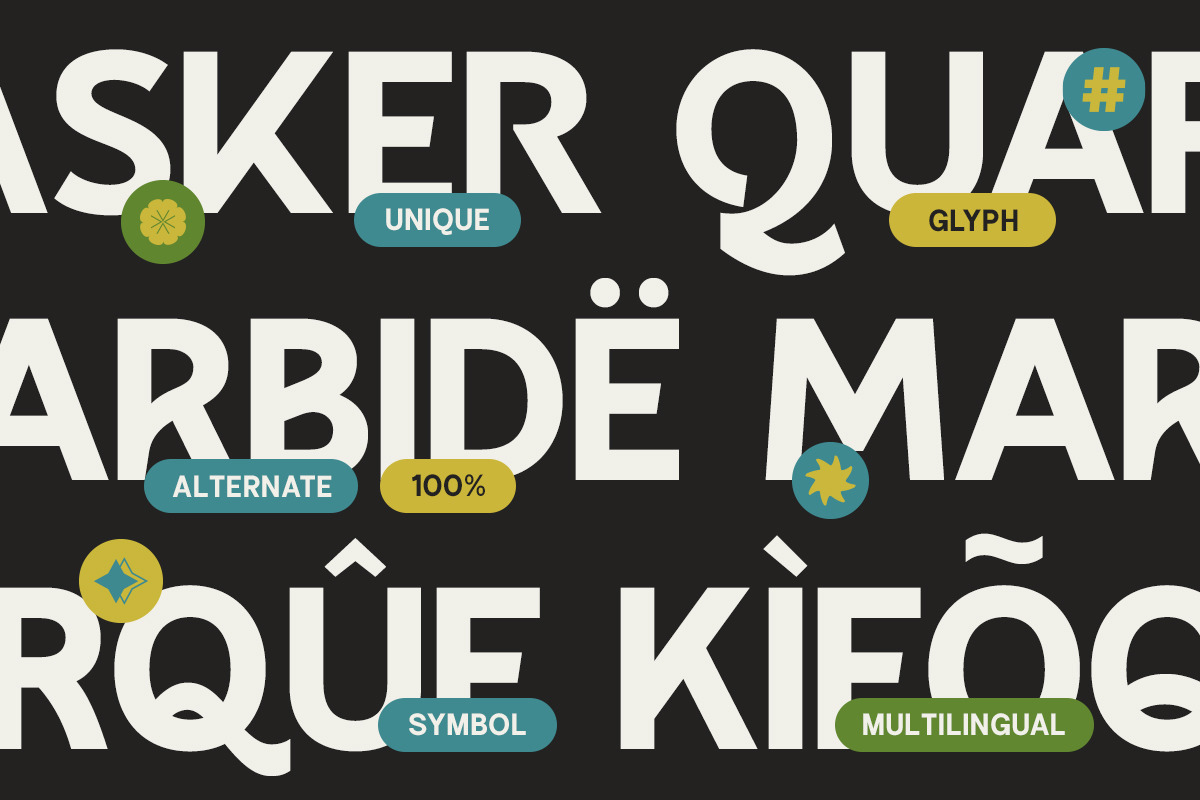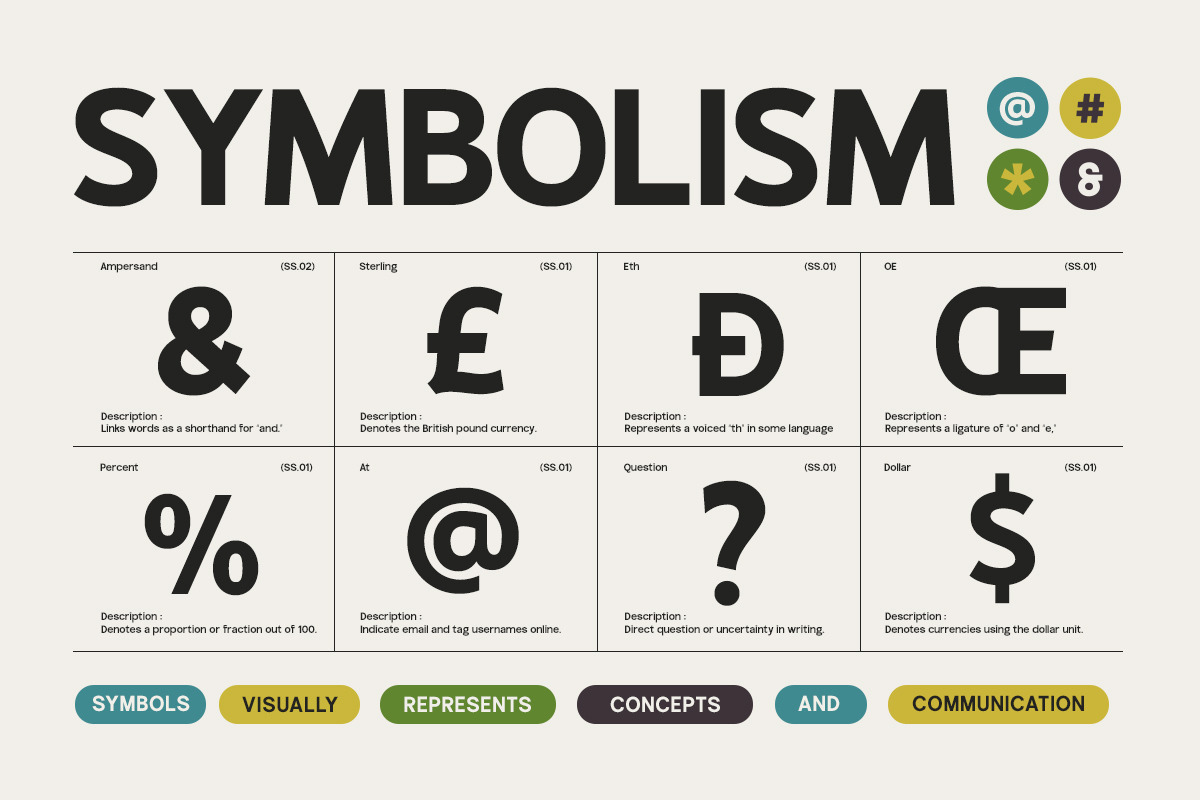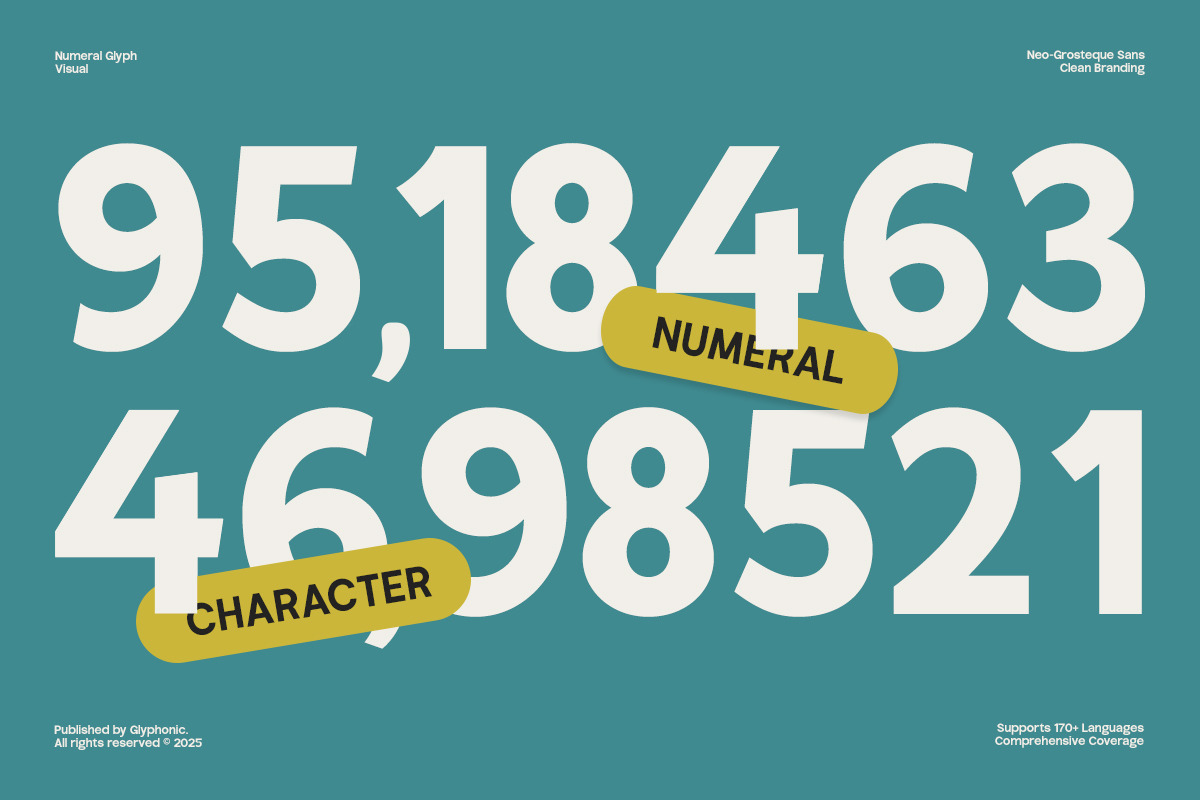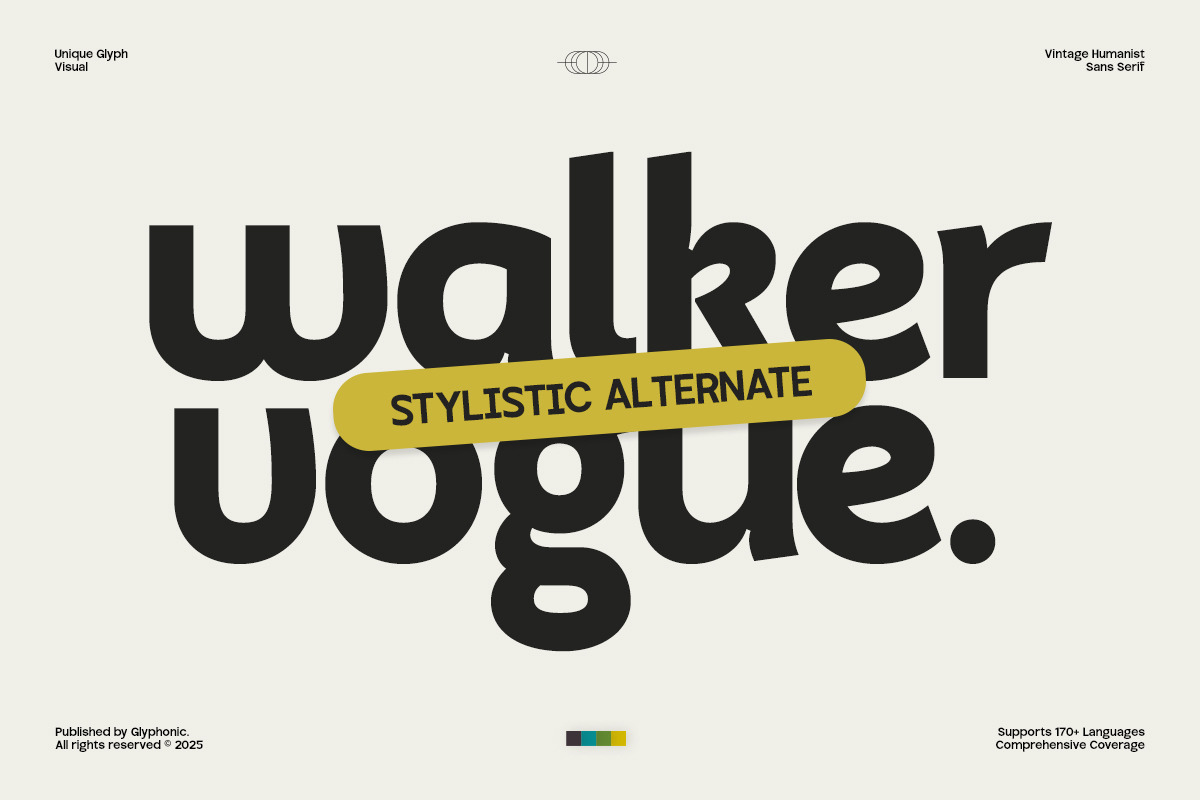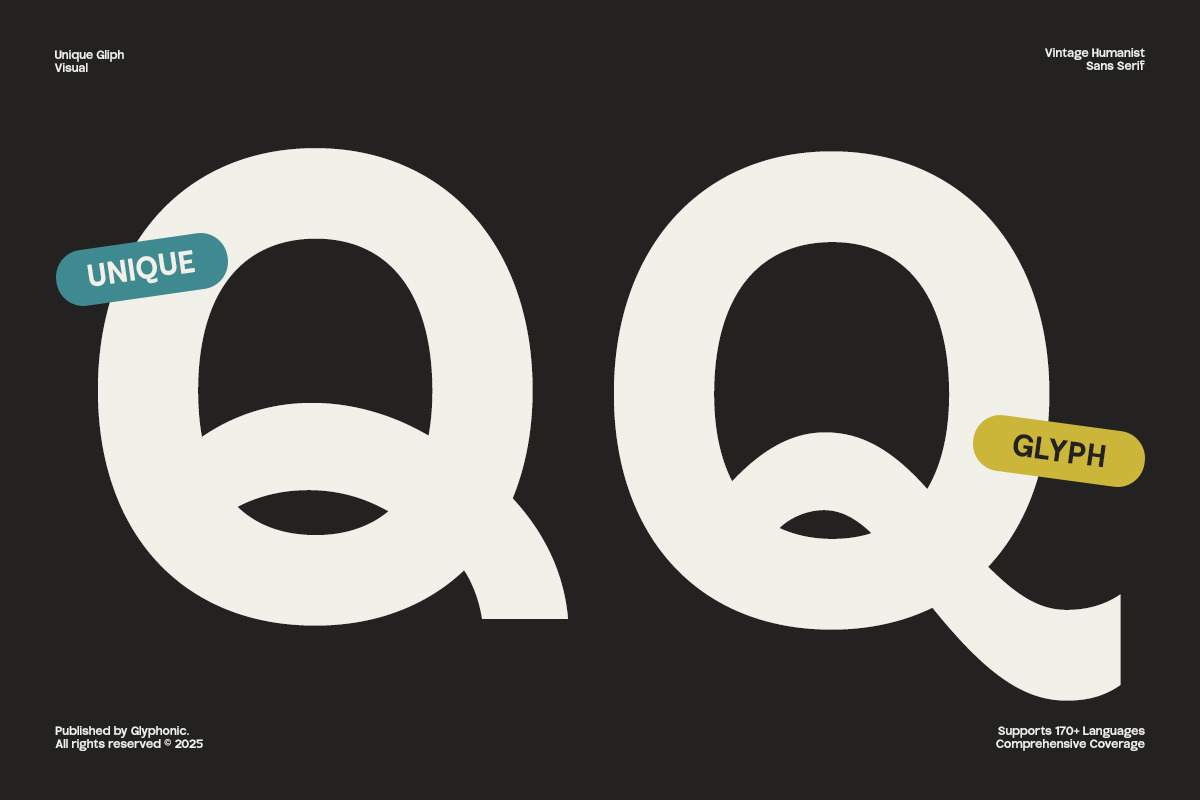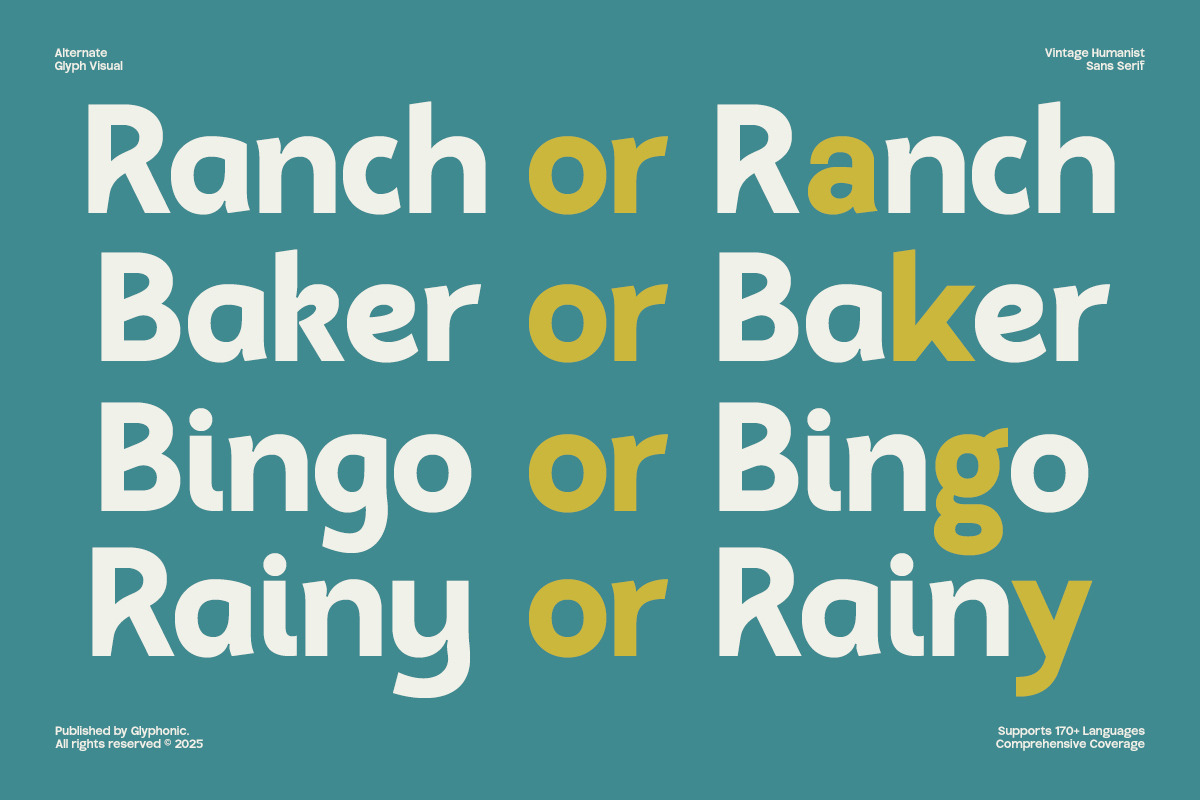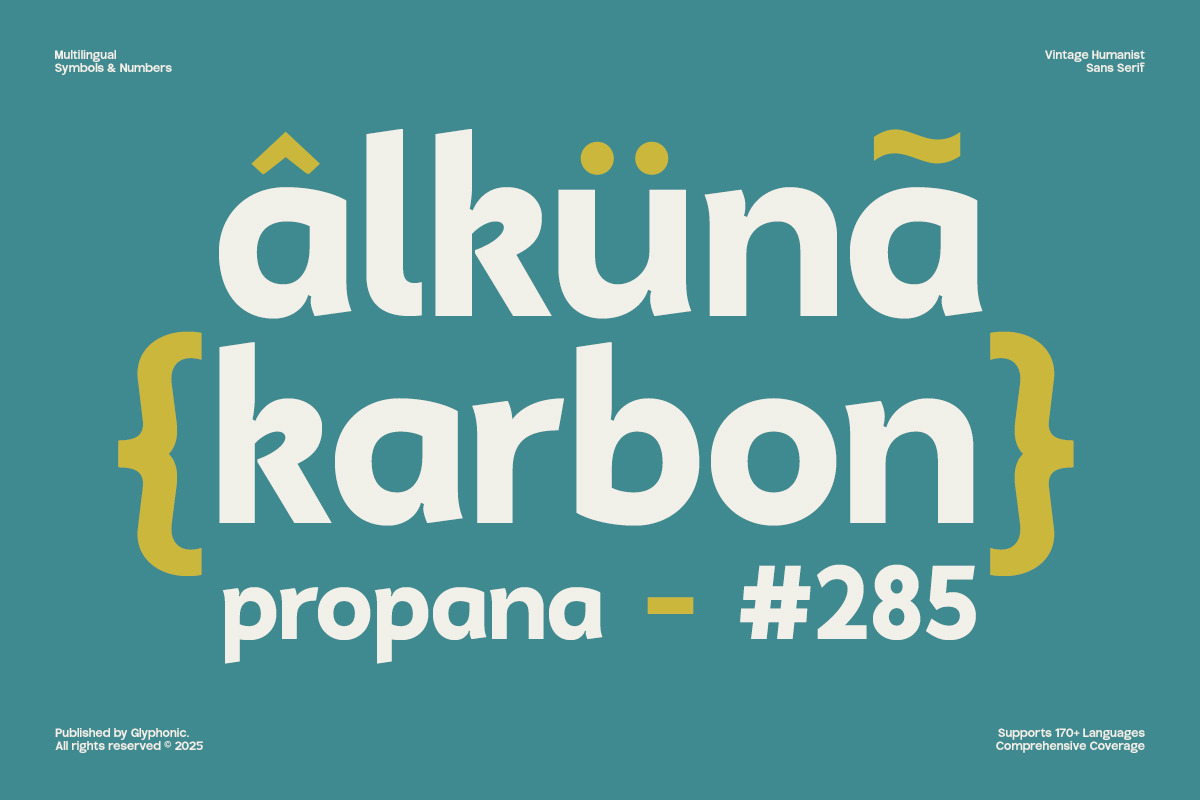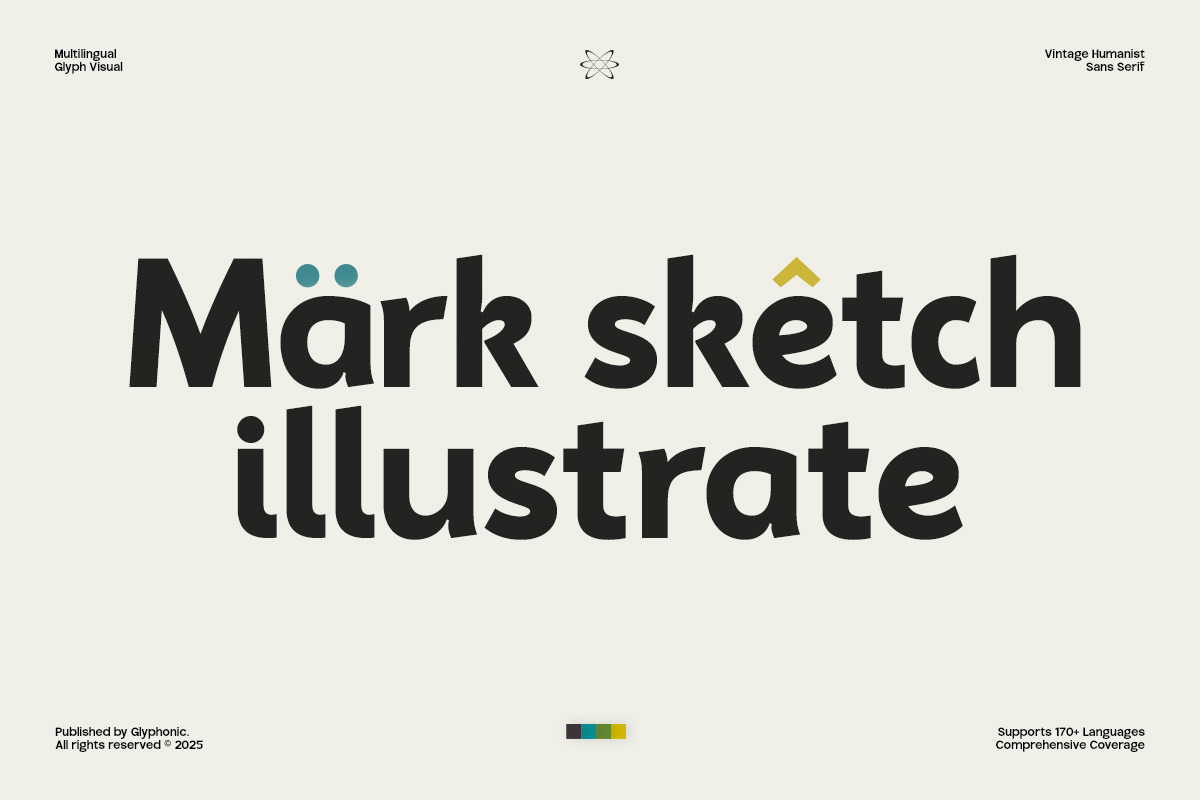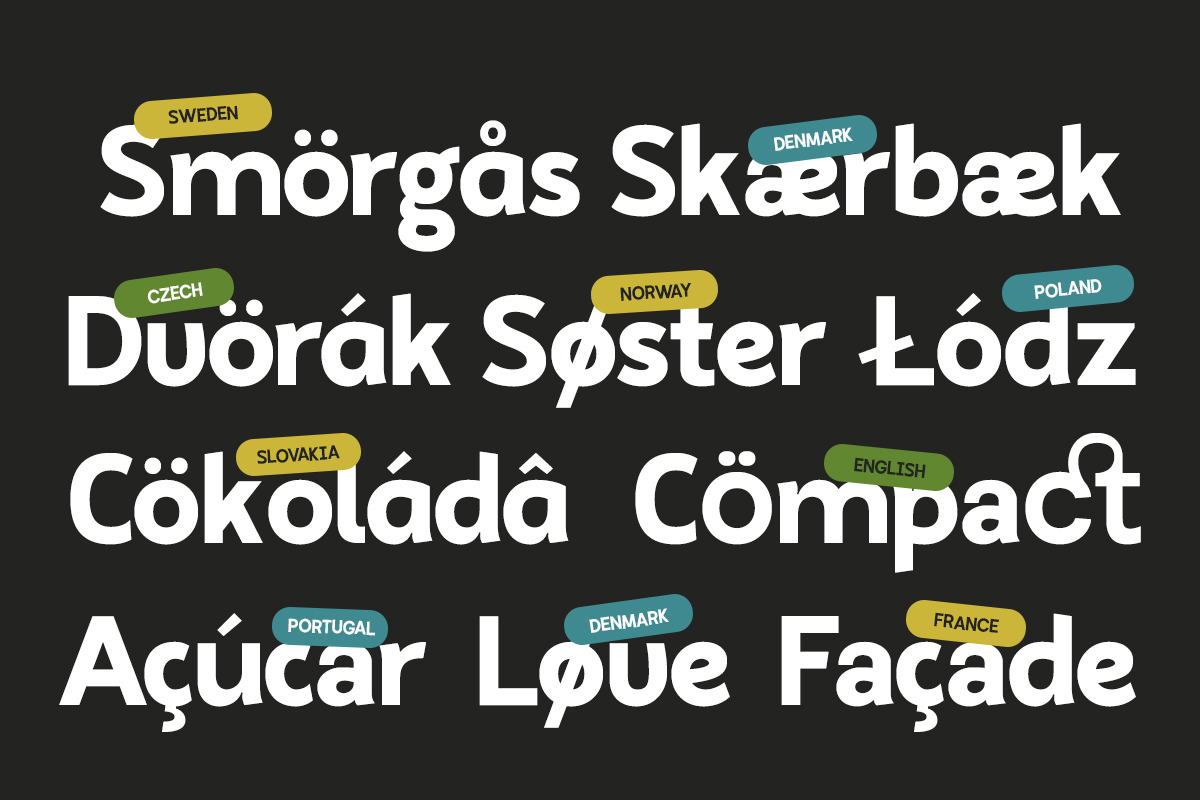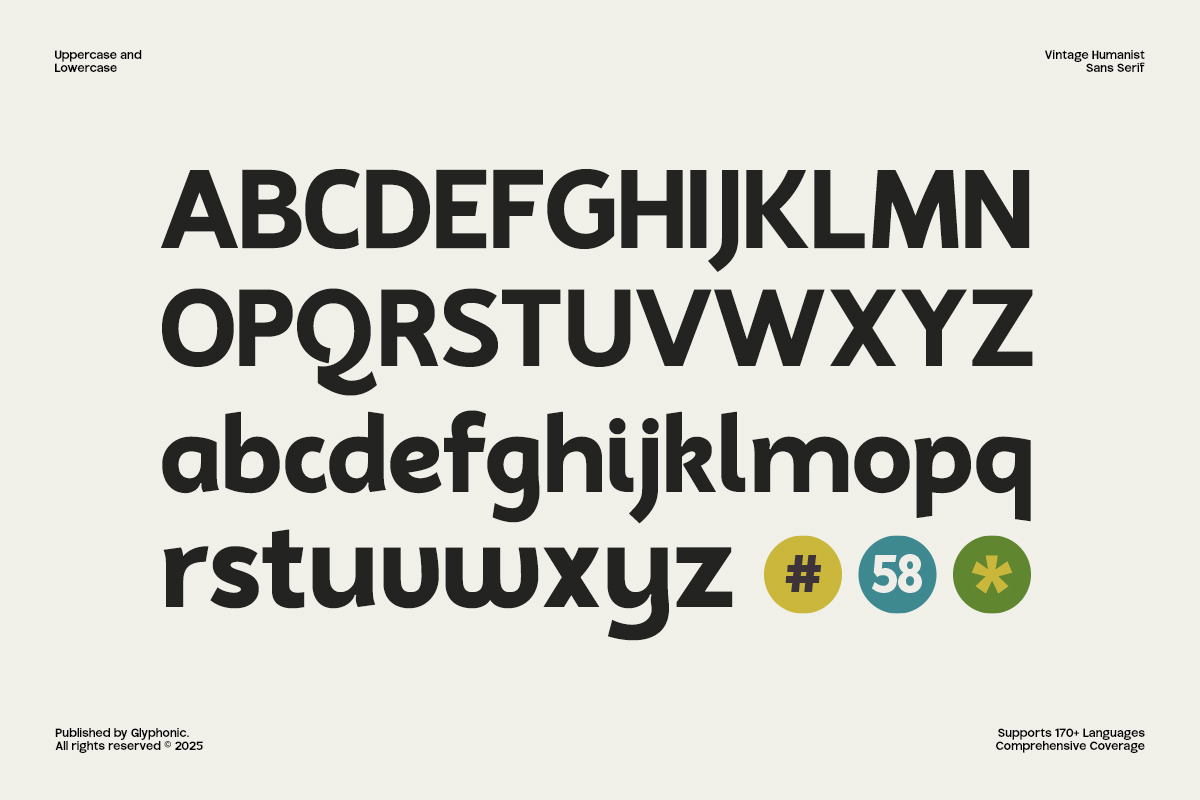
GC Ralinka – Confident Sans Form
GC Ralinka is a bold humanist sans-serif typeface that blends warmth and strength with clean, modern lines. Designed for maximum readability and personality, it’s perfectly suited for headlines, branding, logos, packaging, editorial layouts, and impactful display projects. Crafted to communicate with clarity and confidence, it leaves a lasting impression in both print and digital media.
With its sturdy letterforms, subtle curves, and balanced proportions, GC Ralinka delivers a friendly yet professional tone. Whether you’re designing for lifestyle brands, creative campaigns, or corporate identities, this typeface offers versatility and refined style for any context.
- Ligatures & Stylistic Alternates
Make your design bold, refined, and timeless with GC Ralinka.